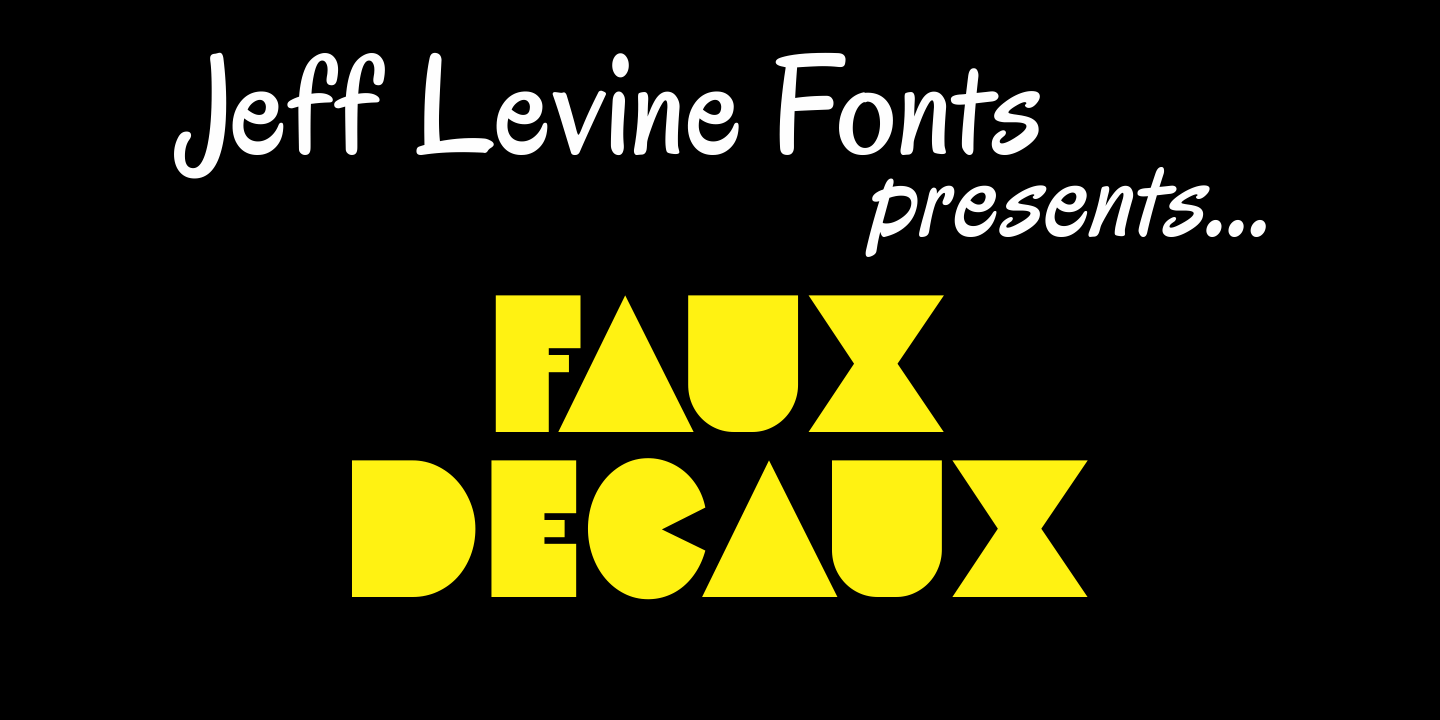
Faux Decaux
"Faux" is false or phony in French and Decaux is a spoof spelling of Deco, thus "False Deco".
Faux Decaux JNL will still fit your Art Deco revival project and blends well with complimentary font designs.